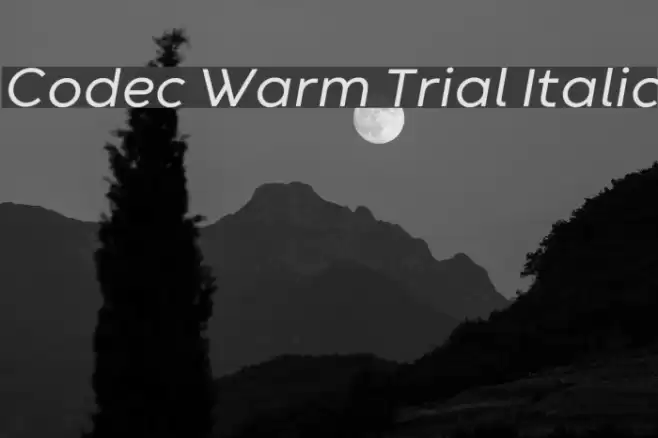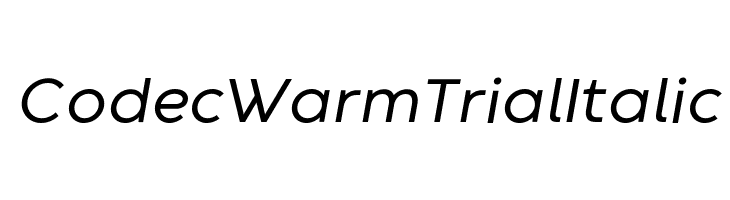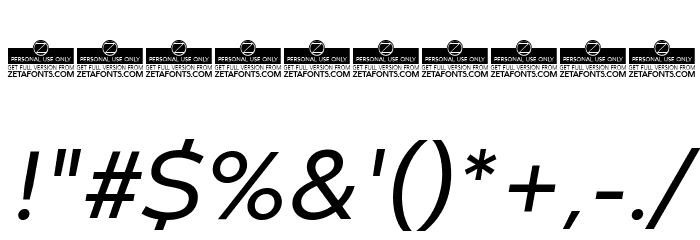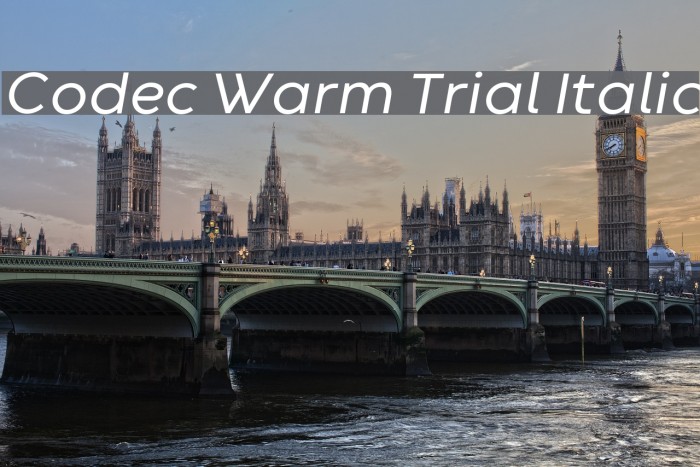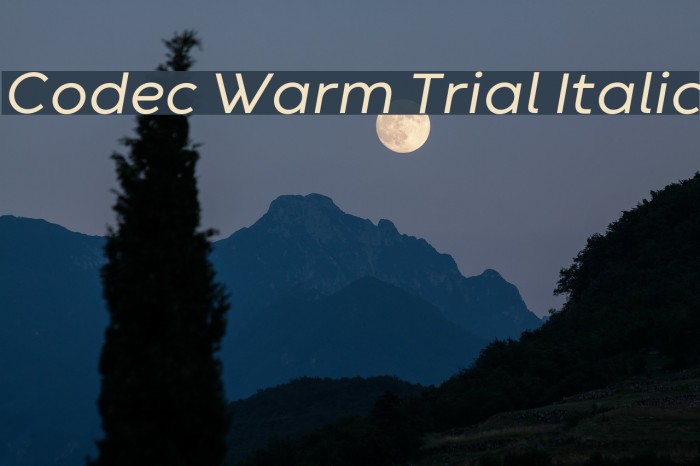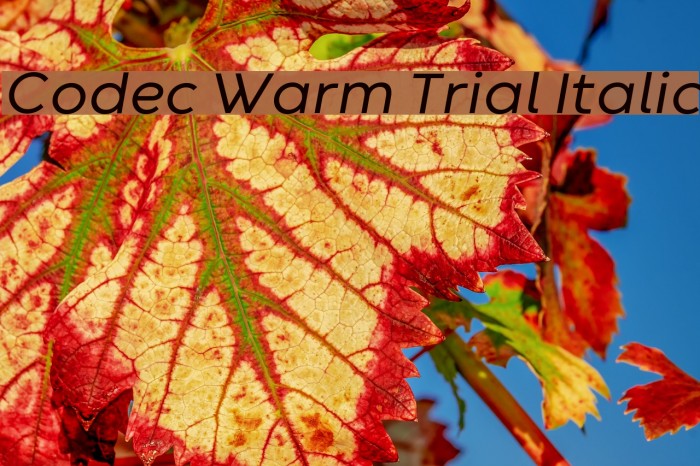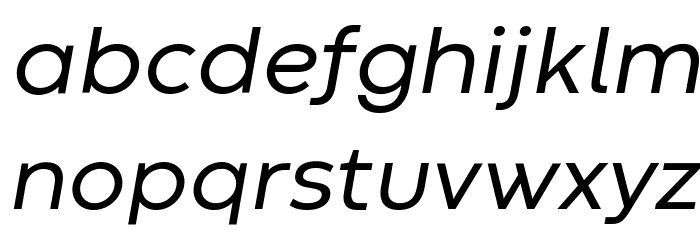
Codec Warm Trial Italic Font
Codec Warm Trial Italic Description
This font exhibits a sleek and modern design with a subtle italic slant, giving it a dynamic and forward-moving appearance. The characters are clean and well-defined, with smooth curves and a consistent stroke width that enhances readability. The uppercase letters maintain a uniform height, while the lowercase letters are slightly more rounded, adding a touch of softness to the overall look. The numerals are clear and distinct, matching the style of the alphabetic characters. Special characters are well-integrated, maintaining the font's cohesive aesthetic. This font is versatile, suitable for both digital and print media, and can be used effectively in various design contexts.
A modern, italic font with clean lines and a dynamic appearance.
- Proposed Projects: Ideal for branding, advertising, web design, and editorial projects.
- Category: Sans-Serif